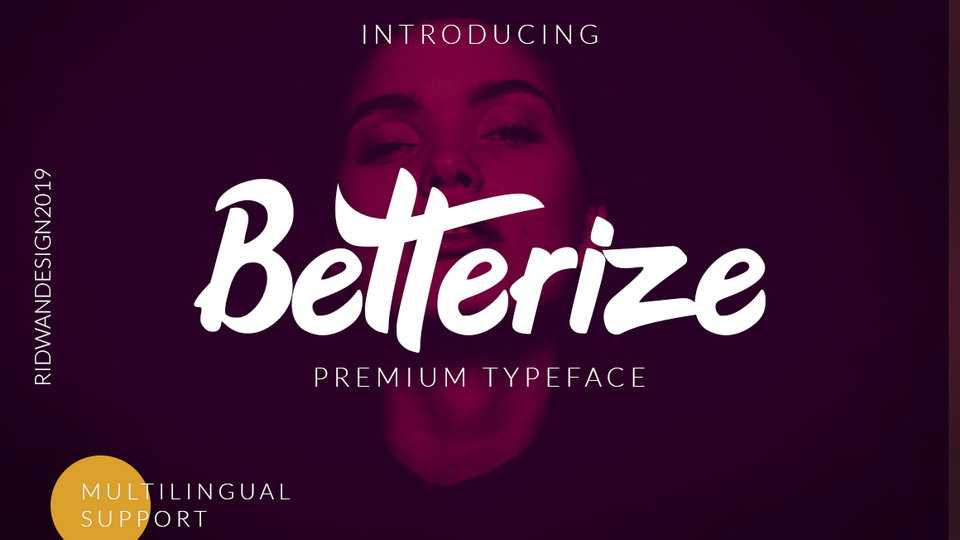
Download Betterize font, a beautiful handwritting script with a unique character. Perfect for logos, labels, headlines, posters and prints or even large-scale artwork.
Designer: Ridwan Saputra